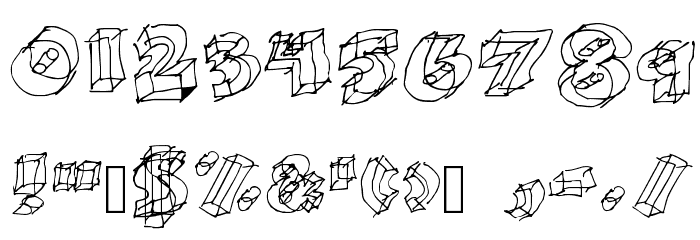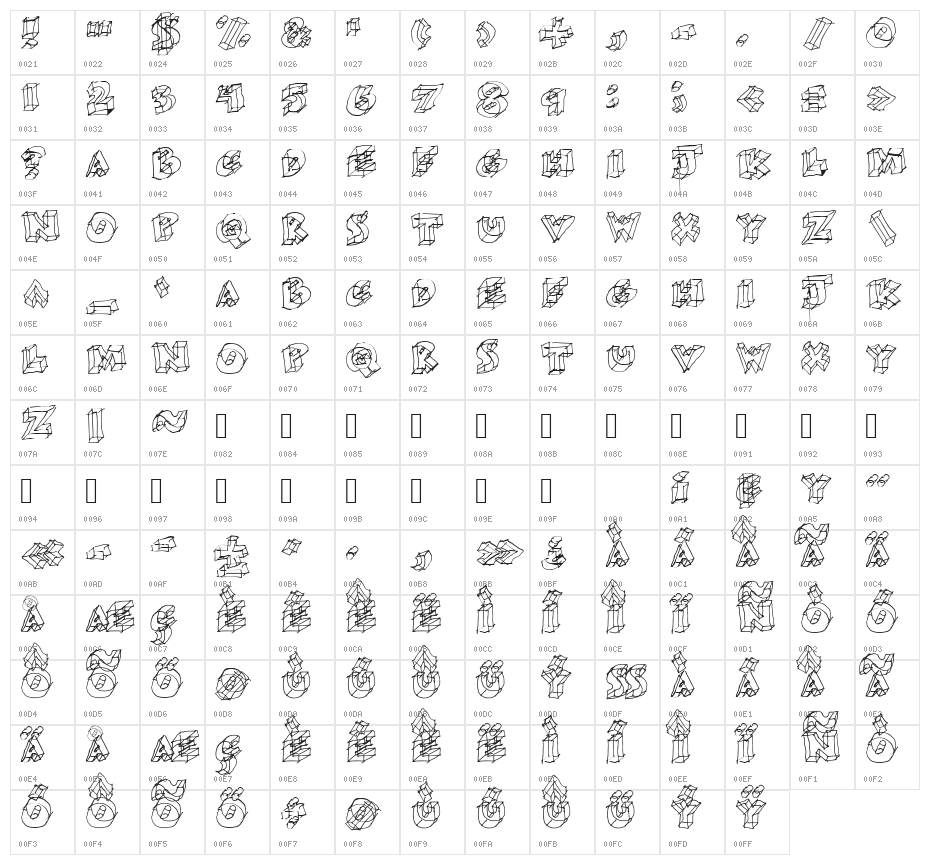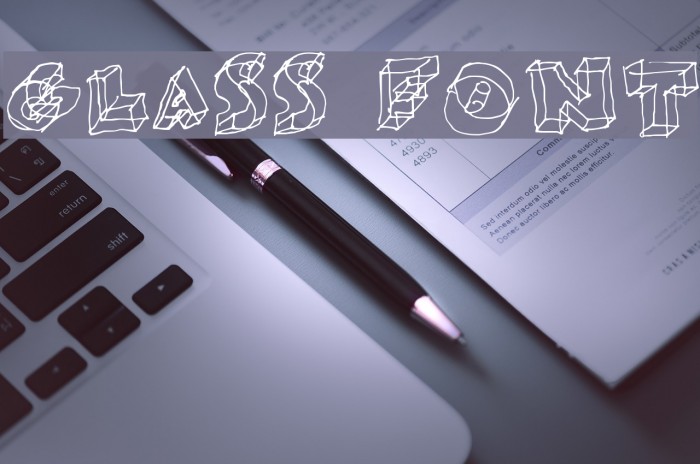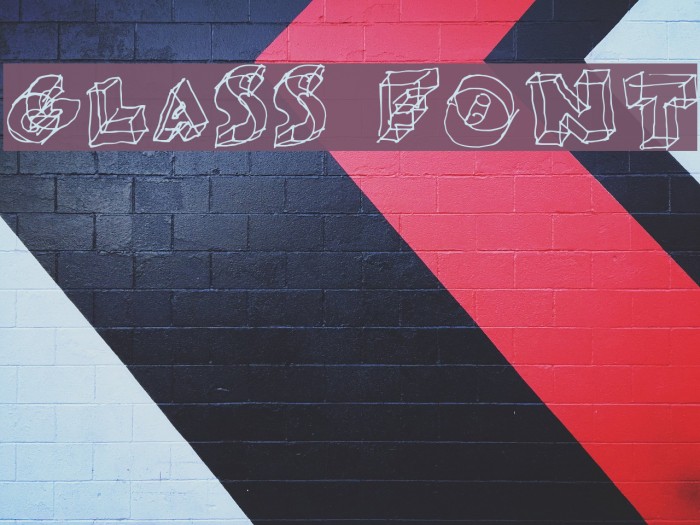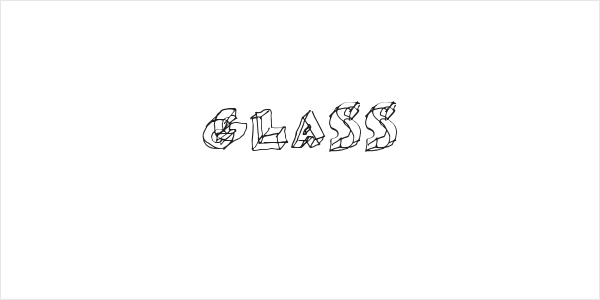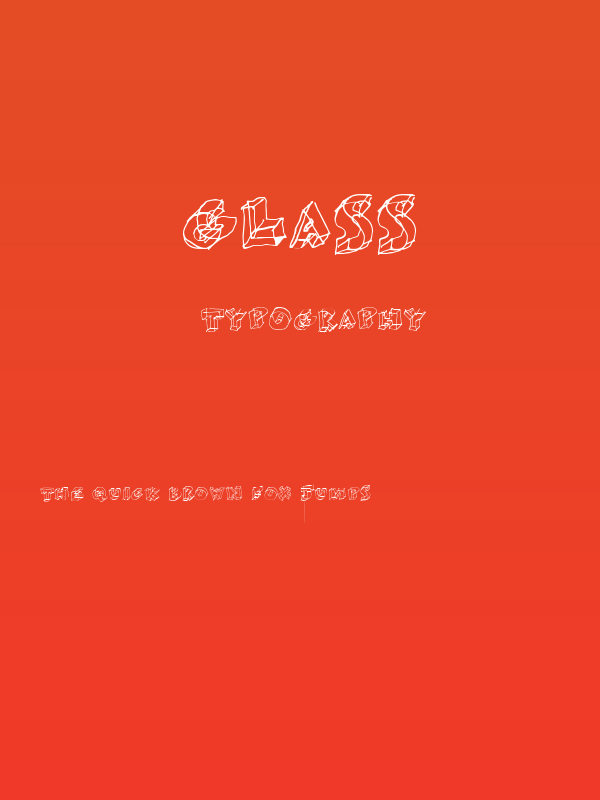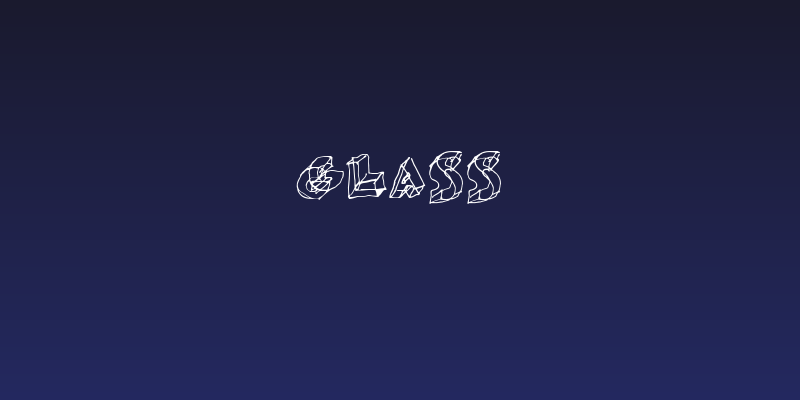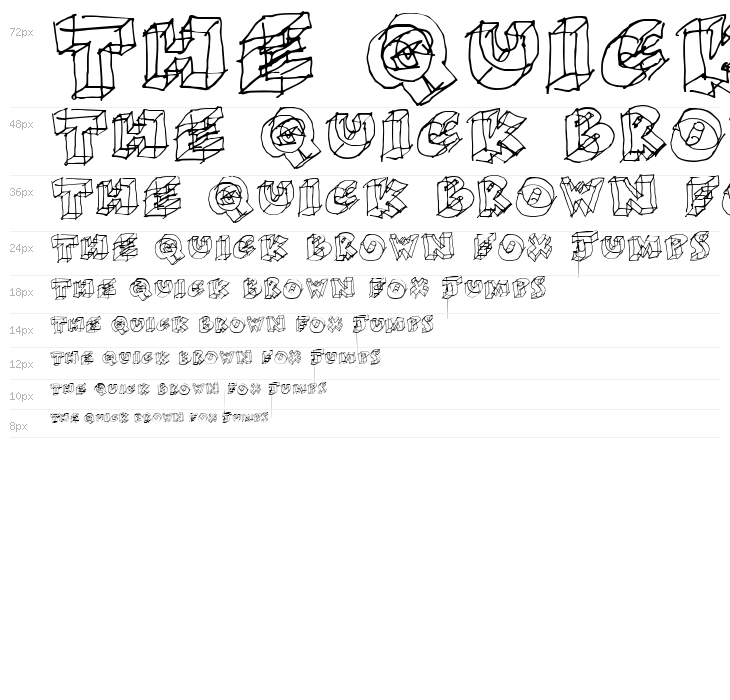
Glass Font
Glass Description
This font features a unique, three-dimensional geometric design that gives each character a dynamic and intricate appearance. The letters are constructed with overlapping lines and shapes, creating a sense of depth and complexity. The style is reminiscent of architectural sketches or abstract art, with a playful yet sophisticated edge. Each character is distinct, with angular forms and a bold presence that makes it stand out. The font is highly decorative, making it ideal for creative projects that require a strong visual impact.
| Proposed Projects | Ideal for posters, album covers, branding, and any creative project that requires a bold, artistic touch. |